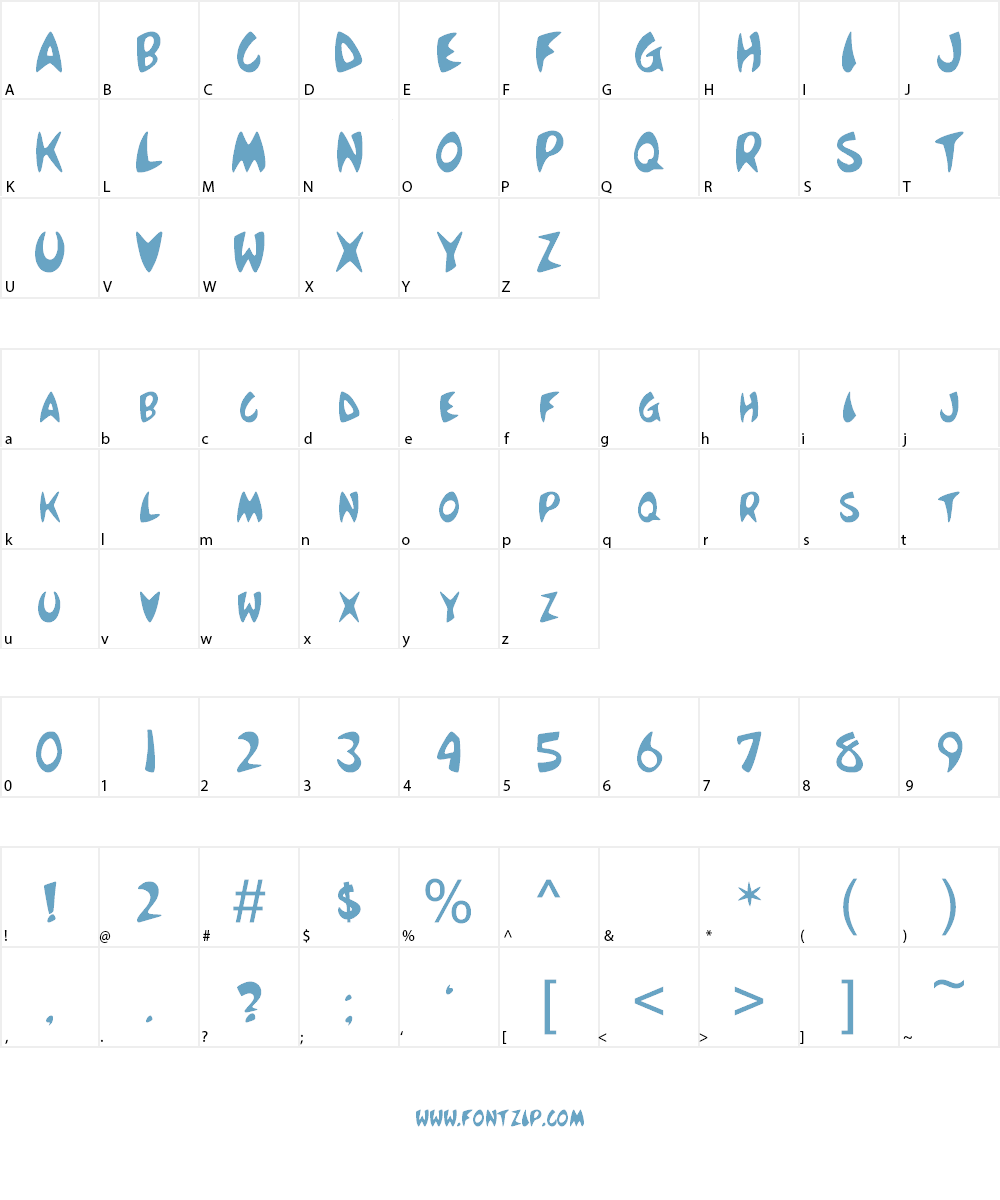
MC BOING BOING is based on a typeface from a 50's design book - partly atomic age, partly cartoonish, McBoing Boing attempts to recreate the happy-go-lucky feeling of the late 50's/early 60's.
It is primarily a headline font, and use under 18pt is not recomended.